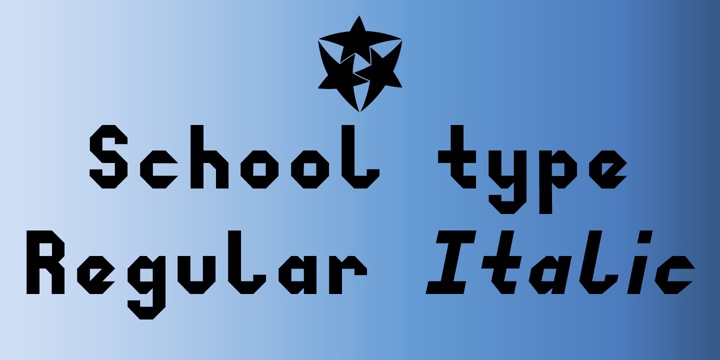
SchoolType Font
SchoolType Font is perfect for educational institutions, school newsletters, learning materials, classroom posters, educational apps, children's textbooks, academic presentations, teacher resources, school branding, and professional educational communications.
What makes SchoolType Font exciting is its educational clarity that embodies the foundational principles of effective learning and academic excellence through pedagogically crafted letterforms. This reliable typeface combines classroom functionality with scholarly appeal, creating a personality that communicates knowledge, accessibility, and genuine educational commitment. The font's academic character and learning-focused design make it perfect for educational institutions, teachers, and learning-focused brands seeking to promote literacy, comprehension, and academic success in diverse learning environments.
The SchoolType Font family includes Regular, Bold, Light, Medium, Academic, Classroom, Condensed, and Educational variants. Each weight maintains the font's educational character while providing comprehensive typographic flexibility for academic brand identity systems and learning design applications across diverse educational platforms.
Whether you're developing school brand identities, creating educational marketing materials, designing learning resources, or building academic campaigns, SchoolType Font delivers unmatched educational appeal and academic sophistication. Its reliable presence makes it perfect for schools, educational publishers, learning platforms, and academic institutions seeking authentic educational representation.
The font's balanced proportions and readable details ensure optimal performance across lengthy educational texts while maintaining its distinctive academic character. Each letterform has been carefully designed to enhance reading comprehension and reduce learning fatigue, making it ideal for students, educators, and educational content creators.
This versatile typeface excels in learning environments, offering designers the clarity needed for comprehensive educational brand communication strategies. The extensive character set includes academic alternates, educational ligatures, and learning symbols for educational market positioning and academic brand storytelling.
Embrace the power of educational design that celebrates learning excellence and academic achievement.